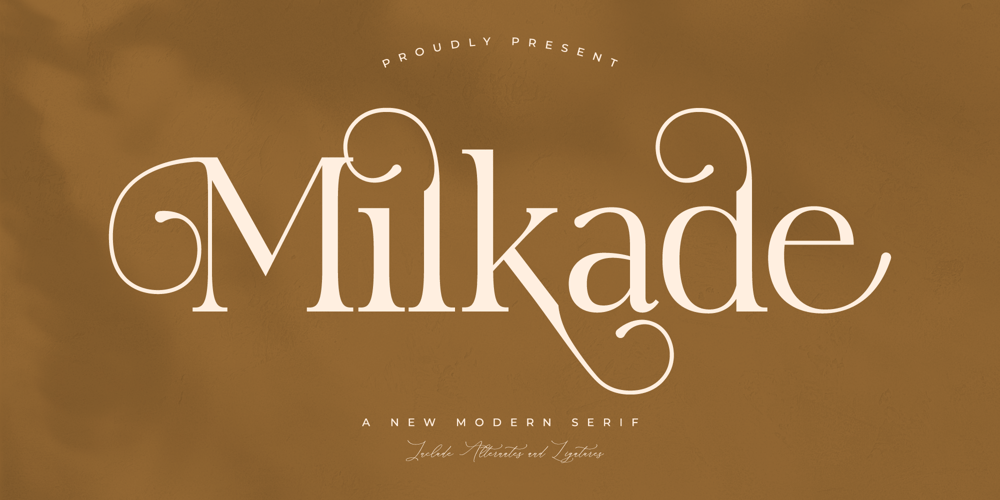
Milkade Font Family was designed by Heru Utama Putra and published by Letterena Studios. Milkade contains 2 styles and family package options. If you’re looking for a font that adds a touch of elegance and sophistication to your design project, Milkade may be the perfect choice. With its delicate lines and ornate serifs, it can convey a sense of tradition and authority that is highly appealing to many audiences. Whether used for body text or headlines, Milkade is a versatile choice that can be used in a variety of contexts to create a sense of refinement and sophistication.